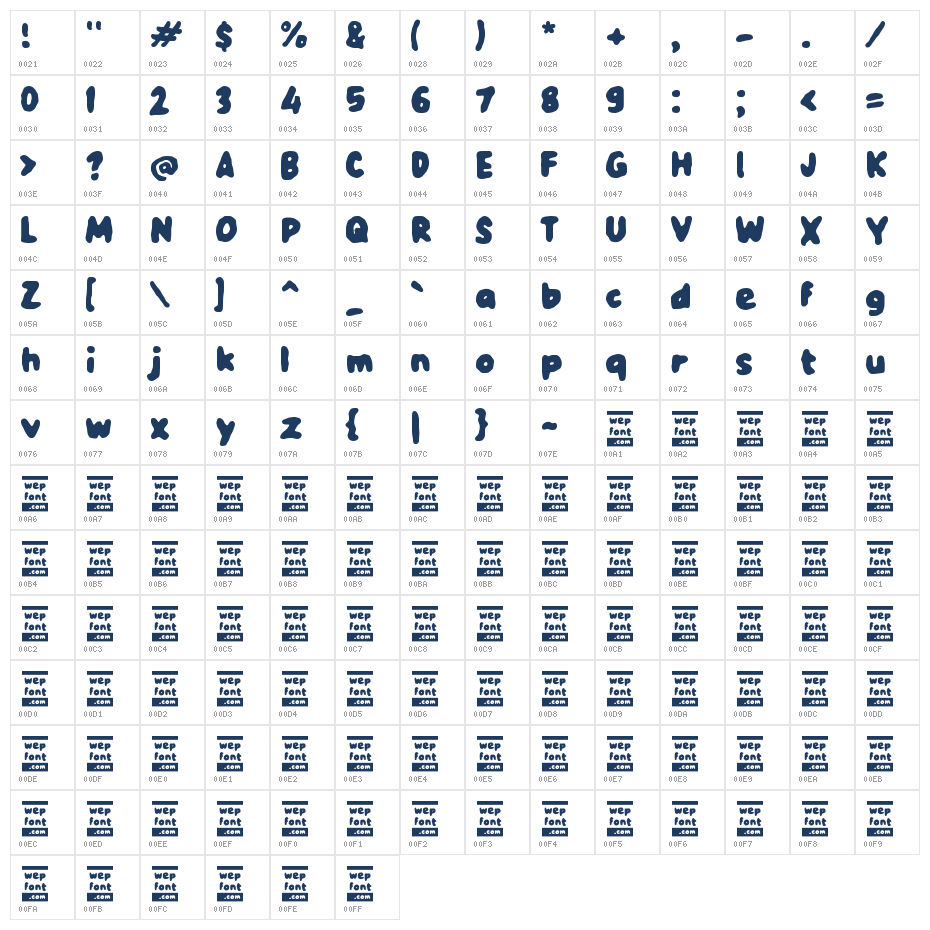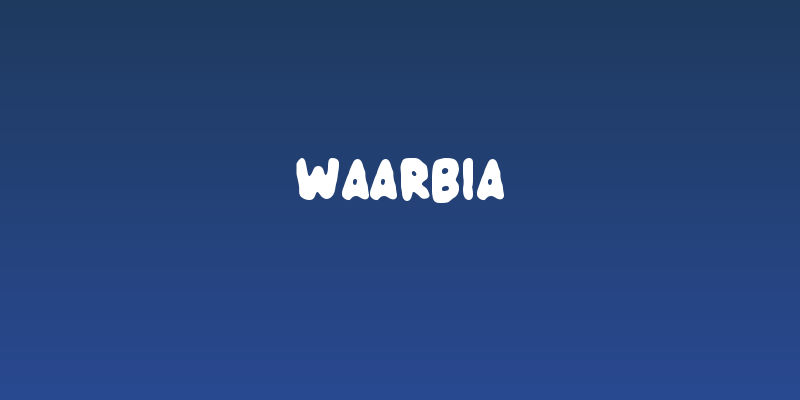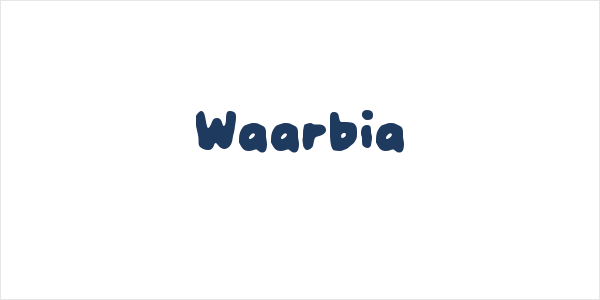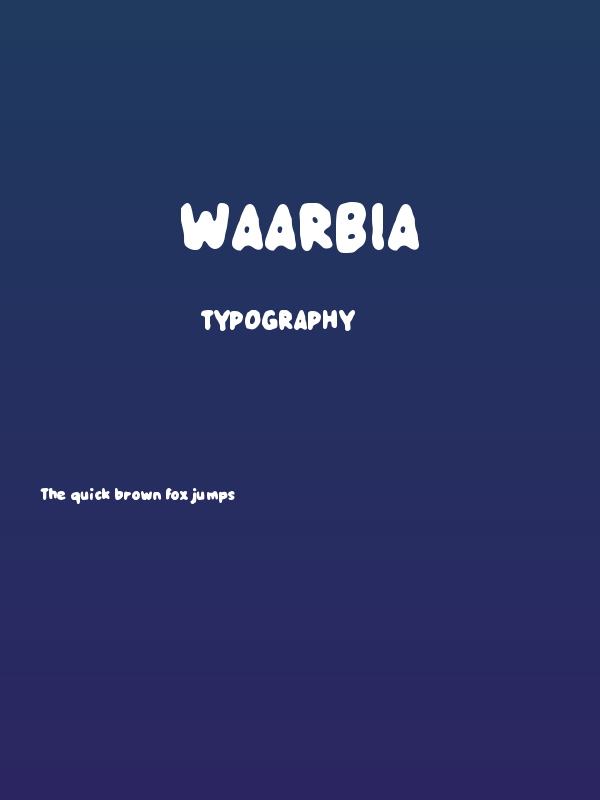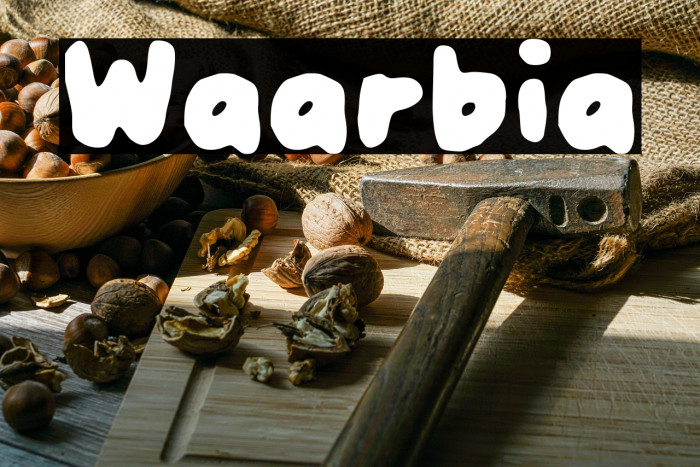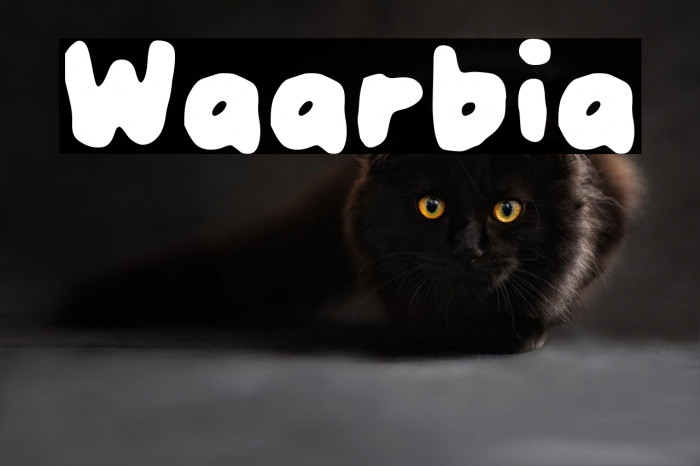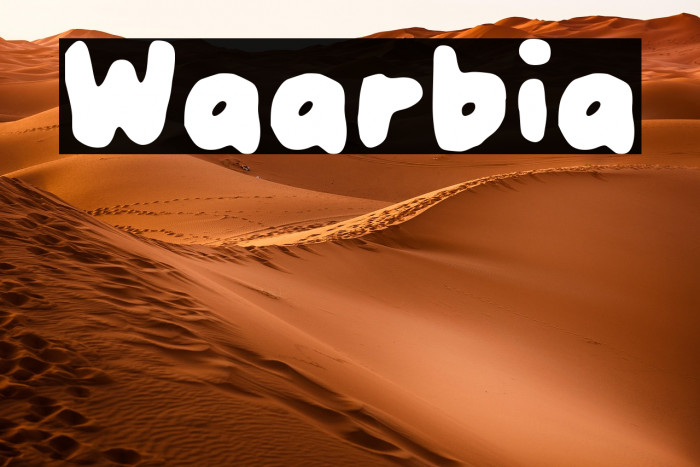
Waarbia Font
Waarbia Description
A playful, rounded, bold display font with a bubbly, informal style.
WAARBIA UPPERCASE
WAARBIA LOWERCASE
WAARBIA OTHER CHARS
| Overall Style | Playful, Casual, Rounded |
| Use Case | Headlines, Logos, Posters, Packaging |